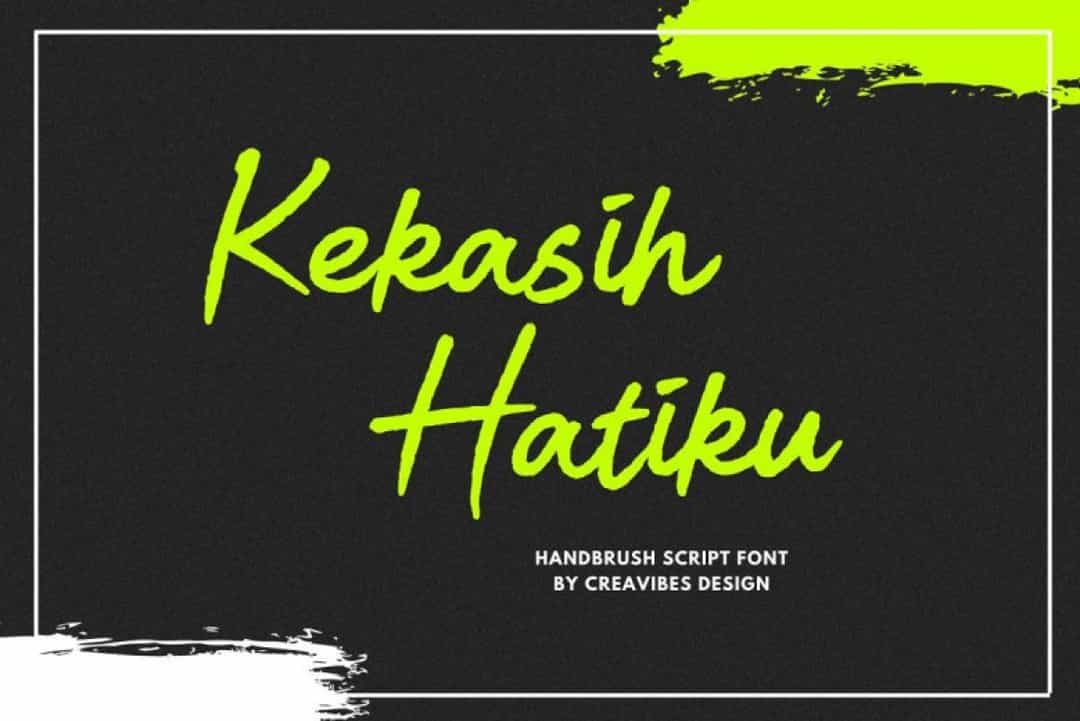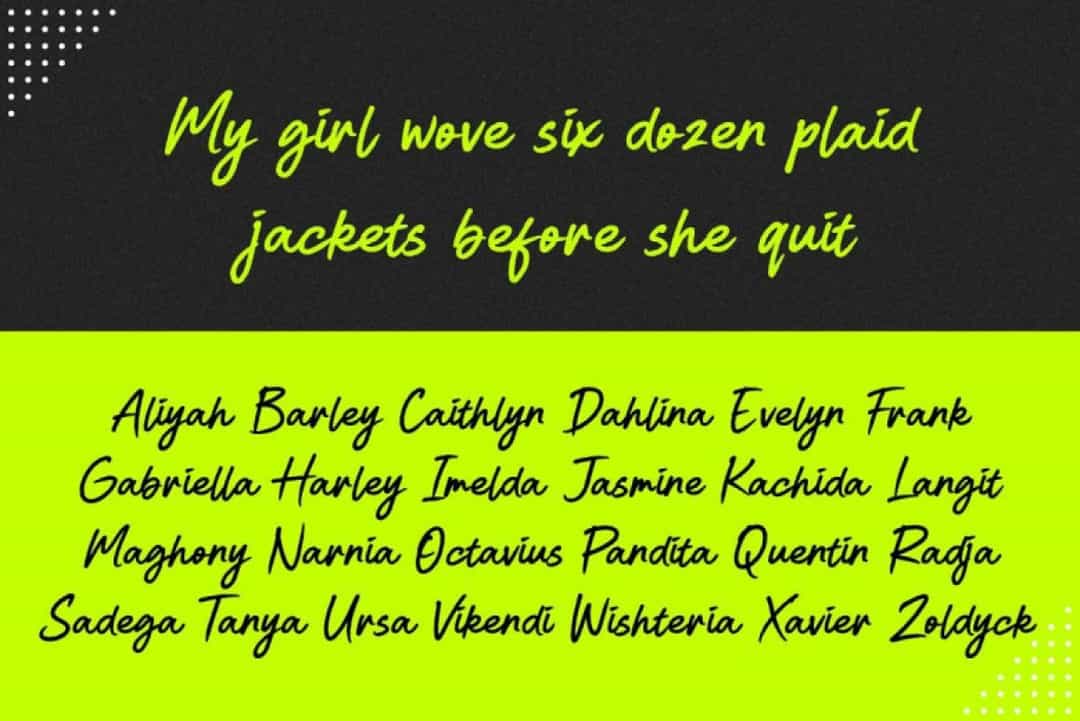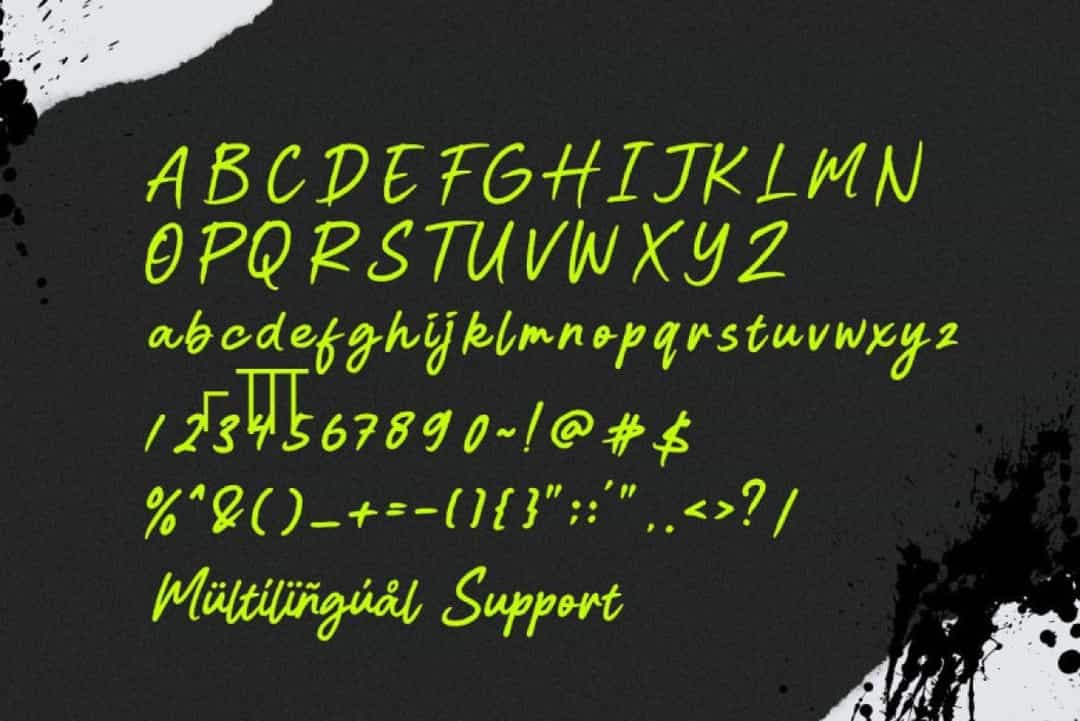
Discover Kekasih Hatiku Font, part of the Brush collection—a versatile and unique font perfect for adding a personal touch to your projects. Download it for free and enjoy crafting designs with style, from invitations to social media posts. This font is available exclusively for personal use, giving you the freedom to create without limits. Unlock your creativity with Kekasih Hatiku Font today!
Kekasih Hatiku – Brush Script Font This font is perfect for invitations, branding stationery, wedding invitations and social media posts. Additionally, this font can also be used for advertisements, packaging of products labels, product designs photographs watermarks special occasions as well as advertisements.